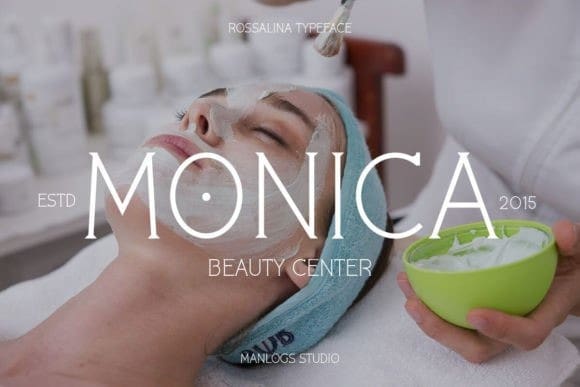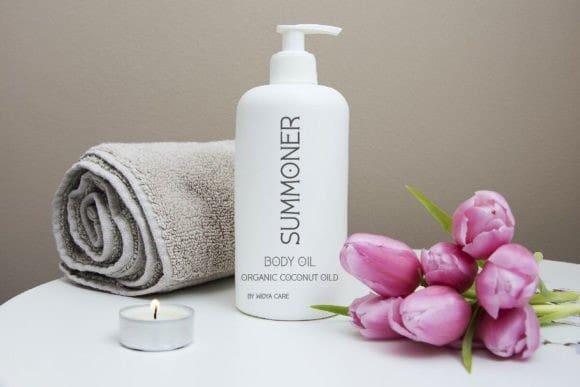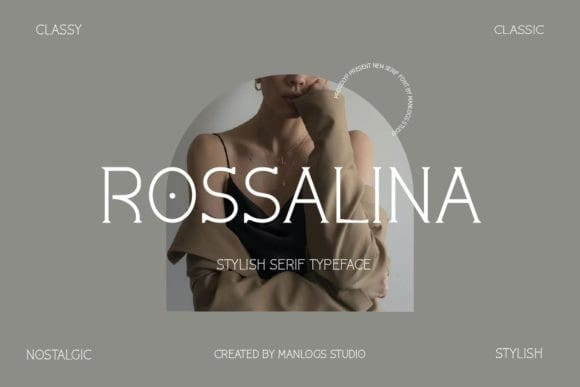
Rossalina Font
Rossalina Font is an elegant and stylish serif font family and a great fashionable solution for your project. This is a multi-purpose and classic font that is perfect for fashion projects, it is contrasted, modern, and easy to read. With it, you can create logos, and banners, and use them in advertising, wedding invitations, product skincare, packaging, book covers and magazines, headings, descriptions, and much more.